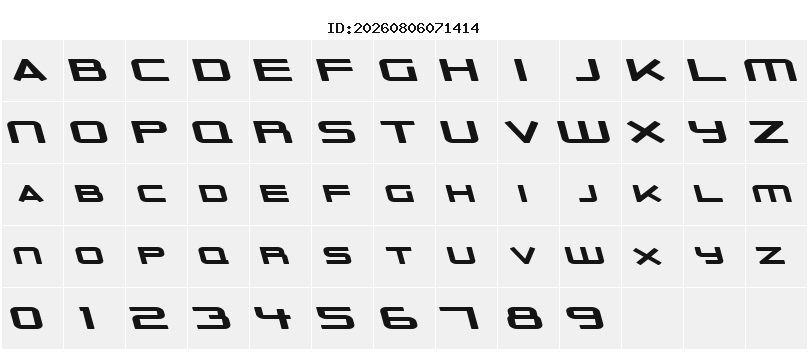
Outer Limits Solid Extended Preview
• Font Name: Outer Limits Solid Extended
• Full Font Name: Outer Limits Solid Extended Italic
About Outer Limits Solid Extended.ttf
Outer Limits Solid Extended.ttf is a modern, elegant sans-serif font designed for ultimate readability and visual harmony. Perfect for branding, headlines, web design, and print materials.